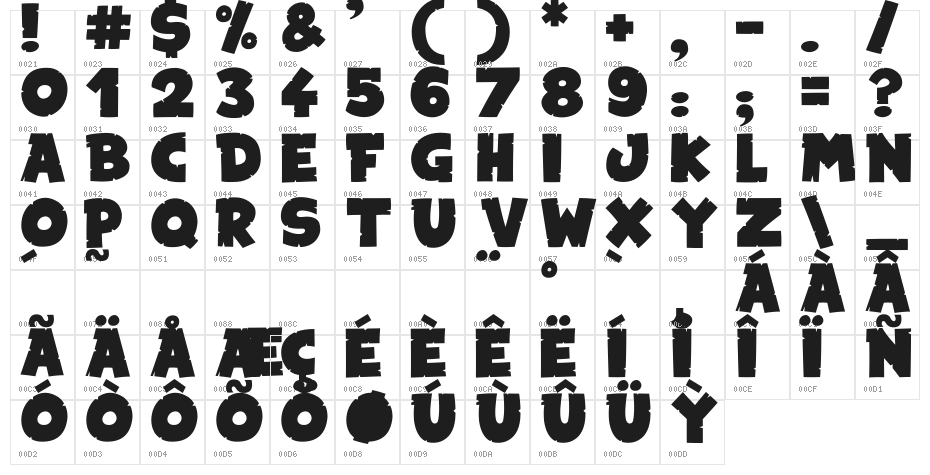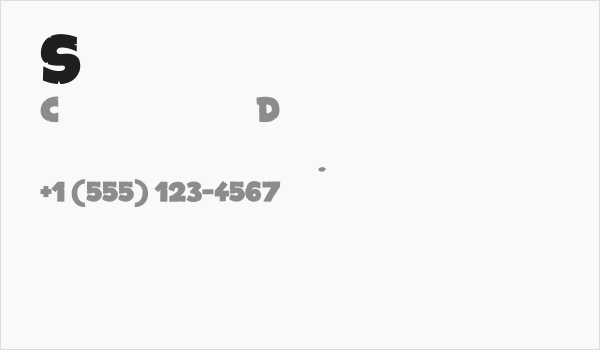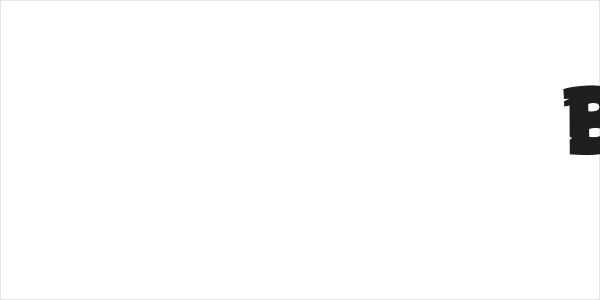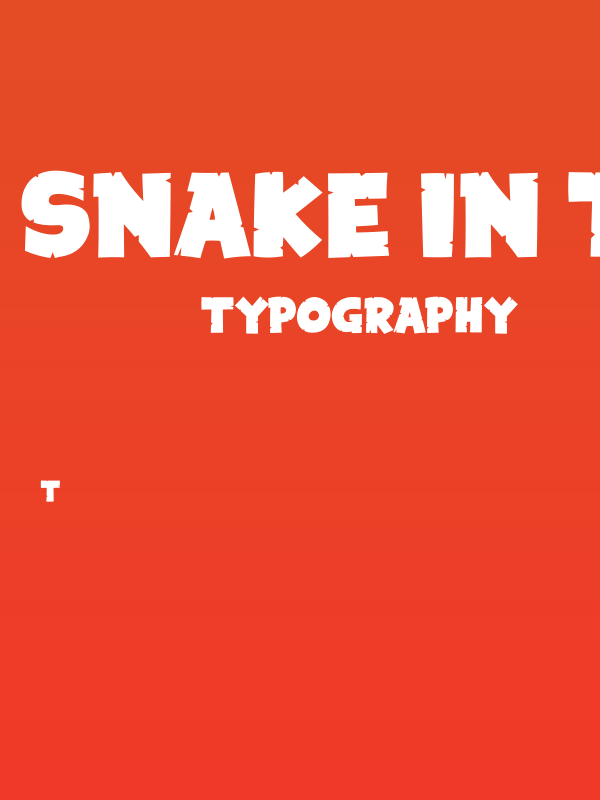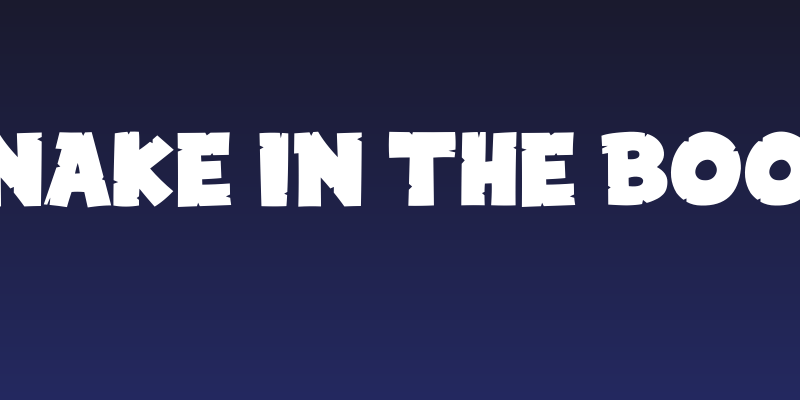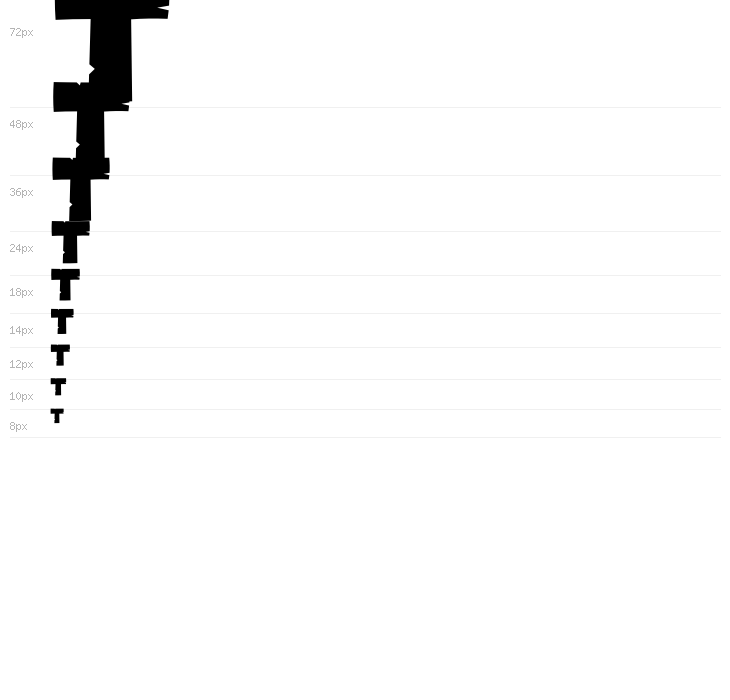
Snake in the Boot Font
Snake in the Boot Description
This font features a bold and playful design with a distinctly chunky appearance. The characters are heavily stylized with irregular edges, giving them a dynamic and energetic feel. The uppercase and lowercase letters maintain a consistent weight, contributing to a cohesive look across the alphabet. The numbers and special characters follow the same bold style, ensuring uniformity throughout. This font's unique design makes it stand out, ideal for projects that require a fun and engaging visual impact.
| Overall Style | Playful, Energetic |
| Proposed Projects | Ideal for children's books, playful branding, posters, and event invitations. |